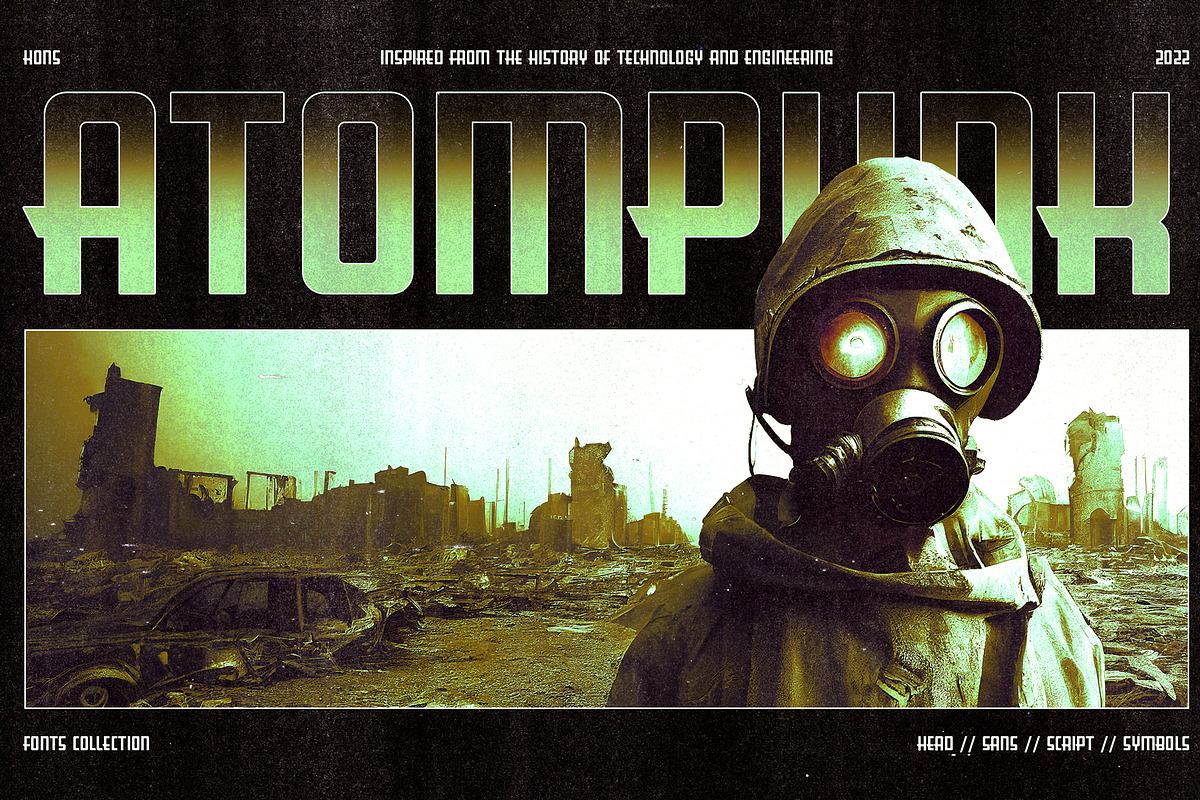
Please note, to use this font for commercial purposes, you must purchase the full version. Atompunk is a bold and dynamic font inspired by the retro-futurism aesthetic of the 1950s and 1960s. With its sharp angles and modern, vintage design, this font is perfect for creating logos, posters, branding, and designs that evoke a sense of science fiction and vintage tech. Whether you're working on a sci-fi project, a retro brand identity, or a futuristic-themed event, Atompunk adds a unique and captivating touch to your work. Test it out and enjoy free download access for personal use. Experience the bold, futuristic style of Atompunk - Retro Futurism Fonts Free Download before purchasing the commercial license. Add a striking, retro-futuristic flair to your designs with Atompunk.